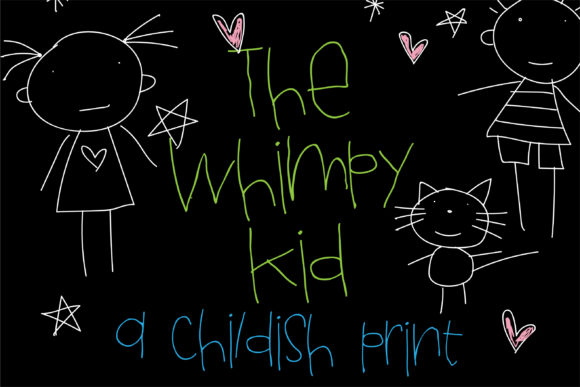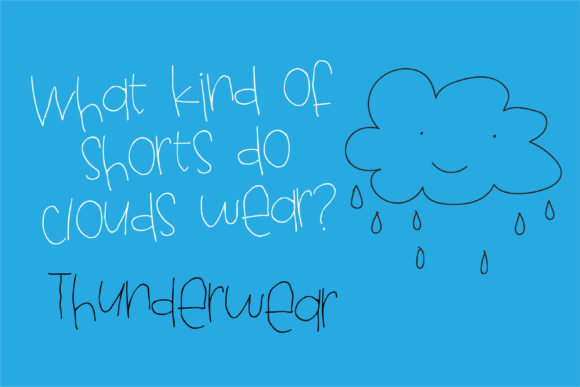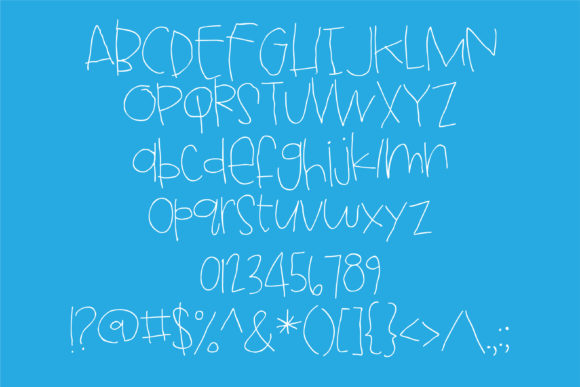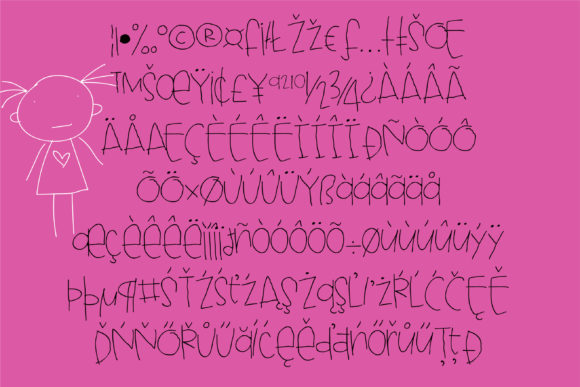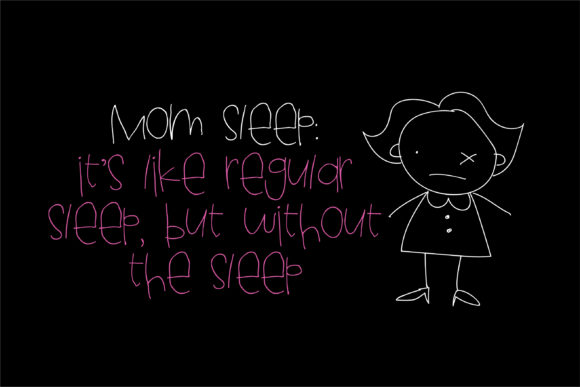
HomeScript FontsThe Whimpy Kid Font Script Fonts The Whimpy Kid Font FacebookXPinterestWhatsApp The Whimpy Kid Font Poster 2 The Whimpy Kid Font Poster 3 The Whimpy Kid Font Poster 4 The Whimpy Kid Font Poster 5 About The Whimpy Kid Font Whimpy Kid is a handwritten font has a very immature and shaky style. Get inspired by its playful appearance! DOWNLOAD NOW People also explored Alluring Calligraphy Font Finland Font Fluffy Kitten Font Hi Monday Font Angeline Font Lgbtq Lovely Font Glorious Duo Font Futuristic Bright Font England Font 325 0 TagsThe Whimpy Kid Font Previous articleThe Girly Kid FontNext articleLophinky Font LEAVE A REPLY Cancel reply Comment: Please enter your comment! Name:* Please enter your name here Email:* You have entered an incorrect email address! Please enter your email address here Website: Save my name, email, and website in this browser for the next time I comment. Personal Use Free Oatmeal Personal Use Free Read more about this font Lollipop Melody Personal Use Free Read more about this font Round Geometric Personal Use Free Read more about this font Pompom Personal Use Free Read more about this font BLOG Transform Your Website: Elevate Your Typography with 7 Best Web Font Generators Are you ready to transform your website's typography from ordinary to extraordinary? Great! Today, we're diving into the world of web font generators, which... The 10 Best Handwriting Fonts to Add Personality to Your Designs Free vs Paid Fonts: Why Investing in Premium Fonts Is Worth It Free Fonts Risk: Why Free Fonts Can Be Dangerous for Designers